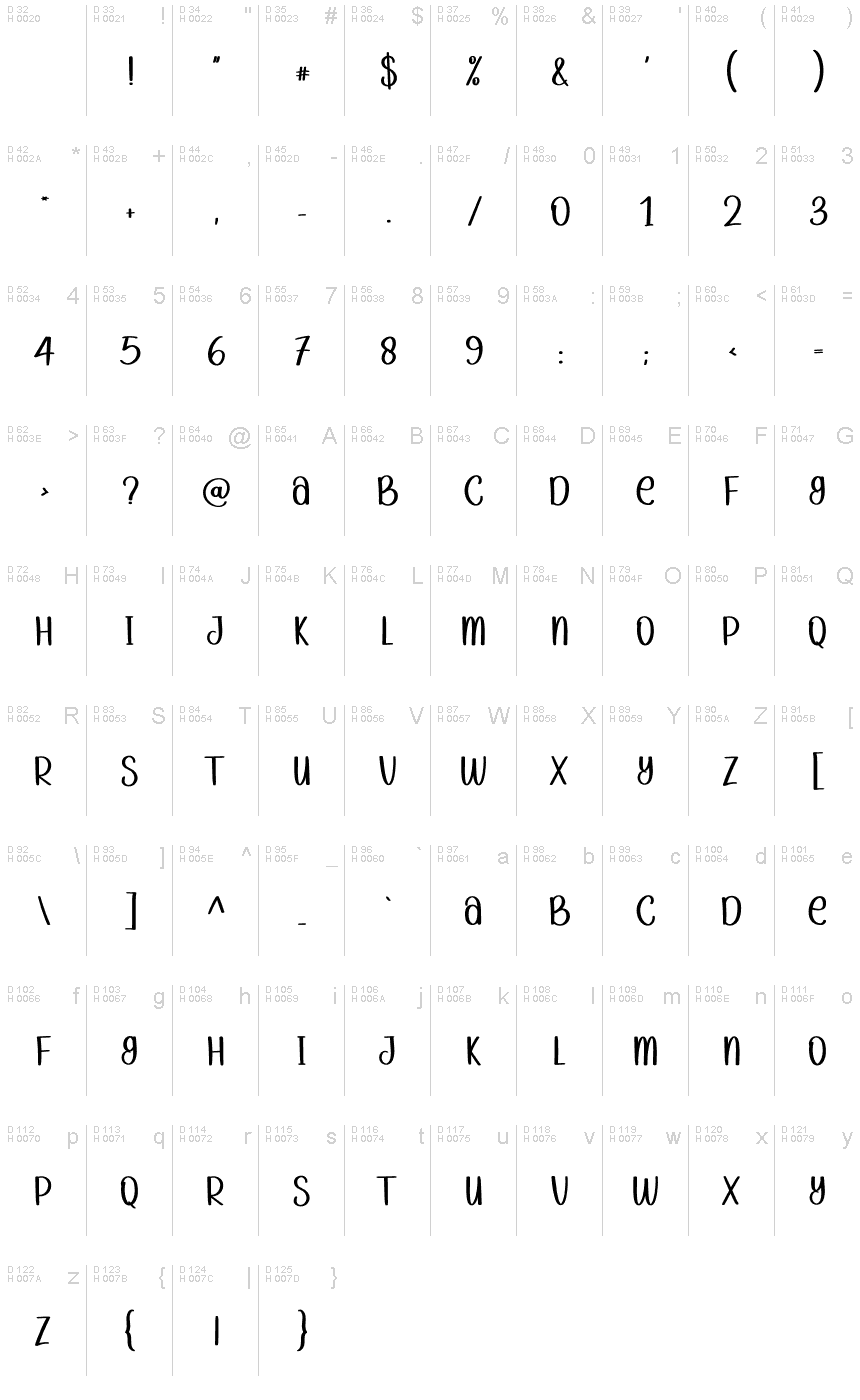
Black Hose
Black Hose, a captivating handwritten font by Harlek Studio, offers a seamless blend of elegance and playfulness. Its semi-light weight and semi-condensed width make it ideal for various creative projects. Enhance your branding with its unique charm or add a touch of whimsy to invitations and greeting cards.
Black Hose is also perfect for stylish blog headers or eye-catching social media graphics that demand attention. With its versatile style and distinctive appeal, this font will surely elevate any design project to new heights.